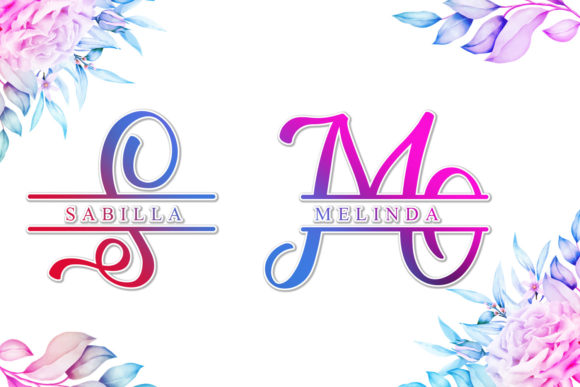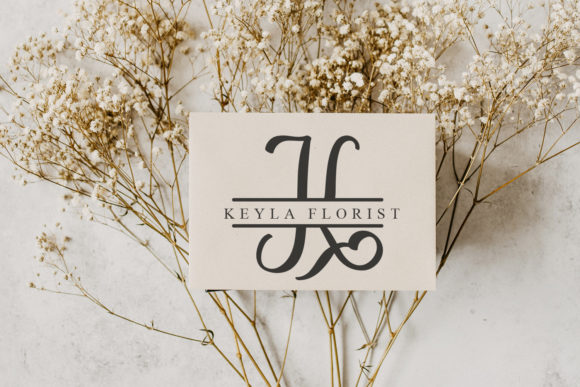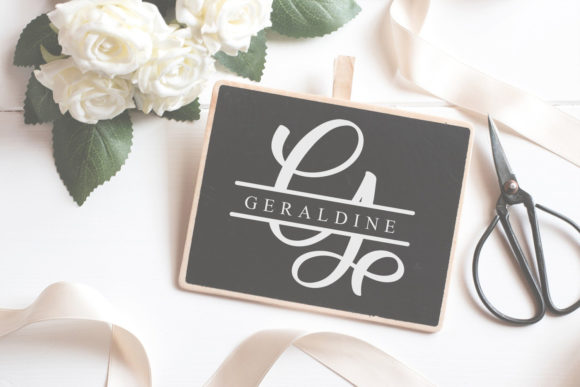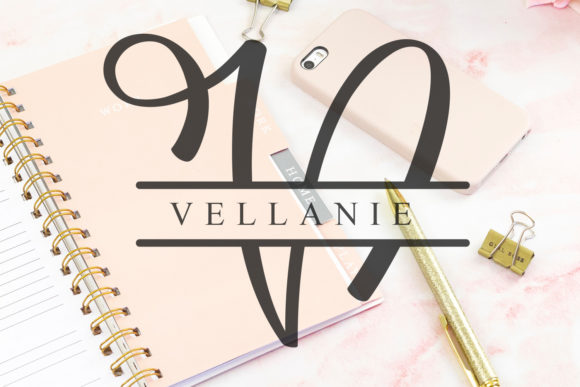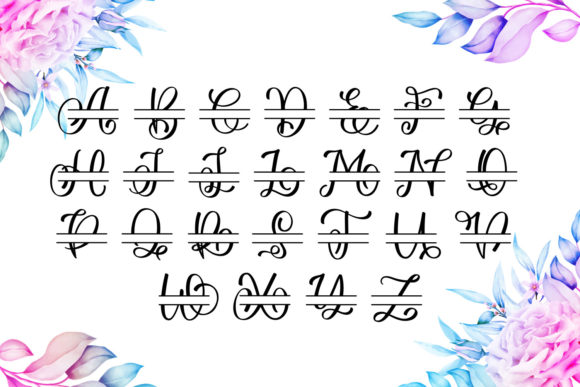
Introduction to Relina Monogram Font
Have you ever been in the middle of a creative project, scrolling through fonts, and stumbled upon that perfect match that takes your breath away? For designers, that moment is priceless. It’s the moment when all the pieces come together, and your vision starts to take shape. For us, that moment came when we discovered the Relina Monogram Font – a charming decorative font that exudes authenticity and charm.
This beautiful font is not just a pretty face; it’s a valuable design resource that can elevate your creative project to the next level. With its unique style and high-quality design, the Relina Monogram Font is perfect for creating stunning invitations, beautiful stationery art, eye-catching social media posts, and cute greeting cards. And the best part? It’s available for free download with a transparent background, making it easy to incorporate into any design project.
Key Features of Relina Monogram Font
- High-quality, intricate design perfect for creative projects and personal branding.
- Unique, hand-drawn style that adds a touch of elegance and sophistication to any design, making it a valuable resource for designers and artists.
Honest Review: Relina Monogram Font
As a designer, I’m always on the lookout for high-quality design resources that can elevate my creative projects. The Relina Monogram Font is one such resource that caught my eye. In this review, I’ll share my honest thoughts on this font.
What works well: ✨ The Relina Monogram Font is a beautiful, hand-drawn monogram font that’s perfect for personal and creative projects. It’s available for free download, which is a major plus. The font is also available in various formats, including OTF and TTF, making it easy to use in most design applications.
The font’s transparent background makes it easy to use in designs with images or videos, and the high-quality design ensures that it looks great on any device. Additionally, the font is highly customizable, allowing you to adjust the size, color, and style to suit your needs.
Overall impression: I’m really impressed with the Relina Monogram Font. It’s a beautiful, high-quality font that’s perfect for personal and creative projects. While it may have some limitations, it’s a great resource for designers who want to add a touch of elegance to their designs.
Common Use Cases for Relina Monogram Font
The Relina Monogram Font is ideal for creating custom logos, social media graphics, and text overlays for your creative project. Use it to add a touch of elegance and sophistication to your designs.